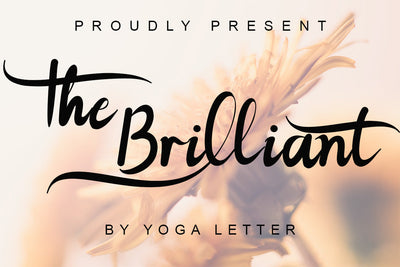
The Brilliant
This font is named "The Brilliant". The Briliant is a modern script font that is very unique and suitable for all purposes. I use the name "The Brilliant" for this font because I have found and created a font to meet all your needs. This font can be used for those of you who like to travel, capture beautiful moments with your partner. Can also be used to create a logo and branding. It is also suitable for capturing romantic stories on social media, as well as for writings on weddings, such as wedding organizers, wedding photography and others.